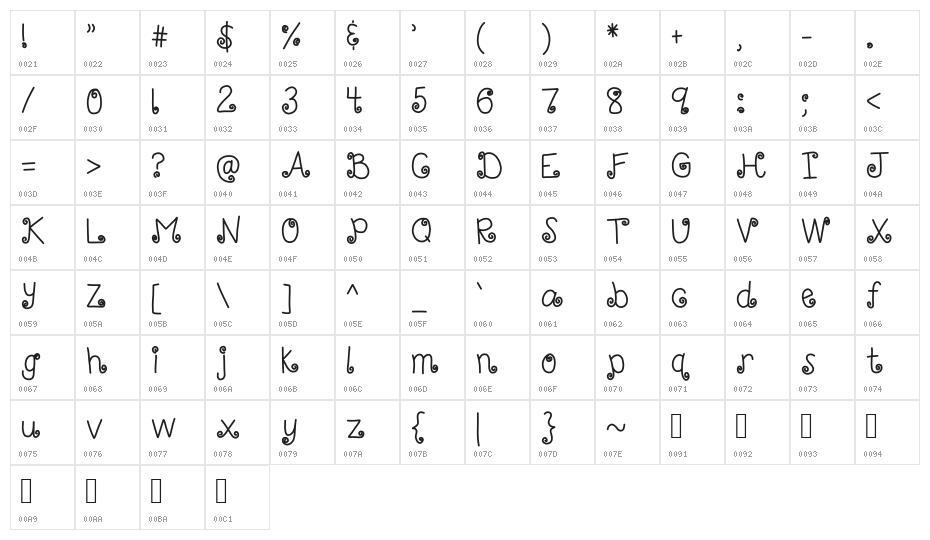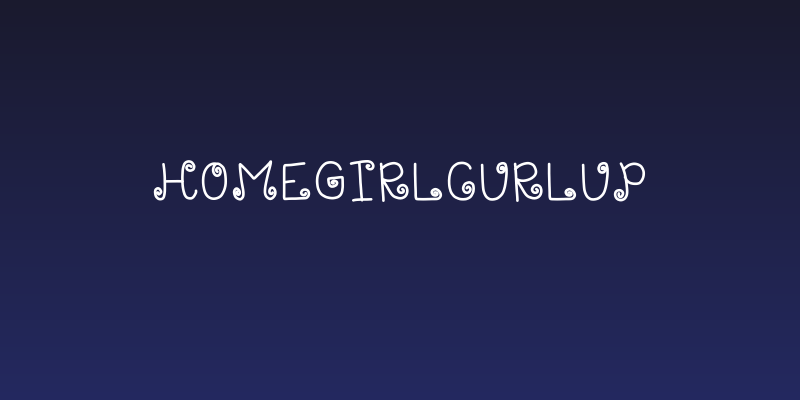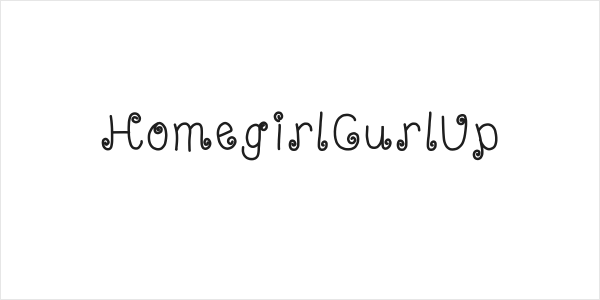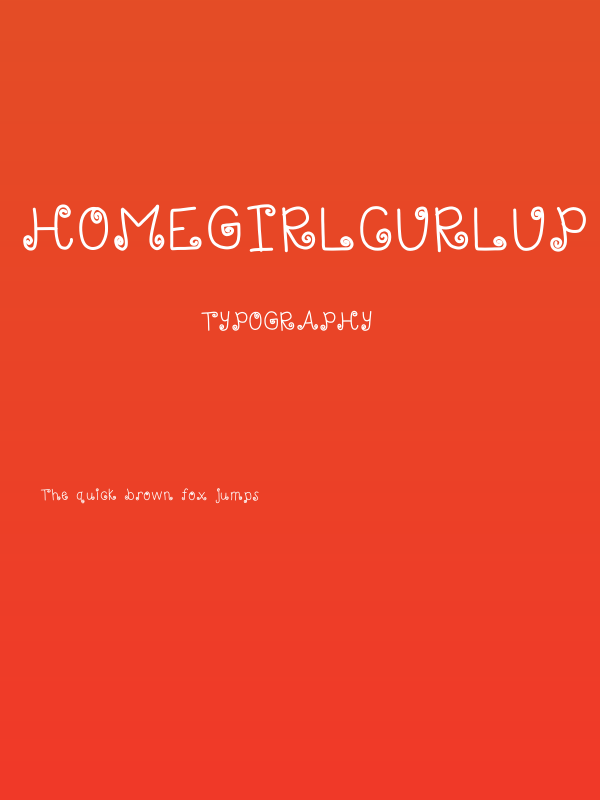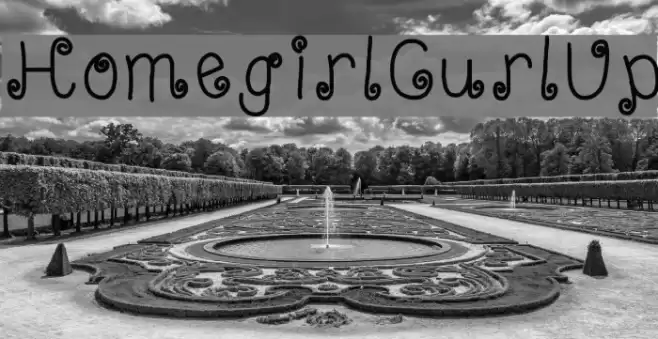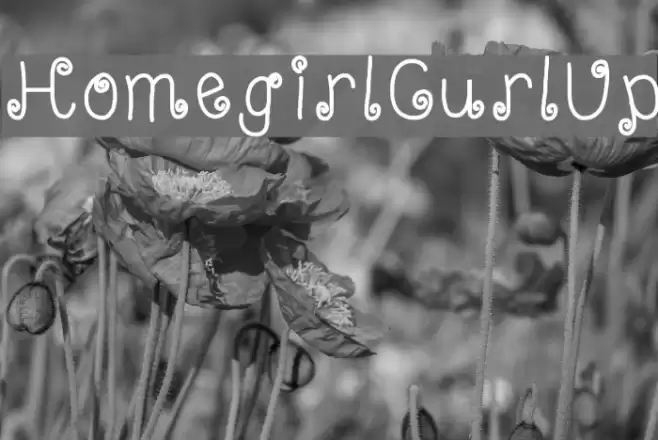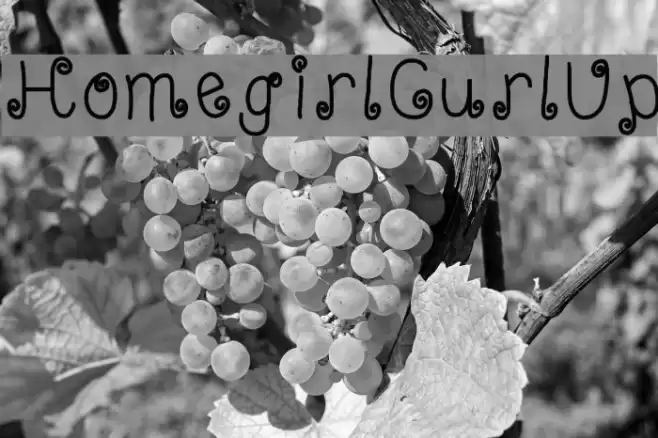
HomegirlCurlUp Font
This whimsical and playful font features unique curly embellishments on each character, giving it a lively and fun appearance. The letters are rounded and have a hand-drawn feel, with each character adorned with distinctive curls that add a sense of movement and creativity. The font maintains a consistent stroke width, providing a balanced and cohesive look across all characters. Its decorative style makes it ideal for projects that require a touch of personality and flair. The numbers and special characters are equally adorned with curls, ensuring a uniform and engaging aesthetic throughout.
| Overall Style | Whimsical |
| Use Case | Headlines, Logos, Decorative text |
| Proposed Projects | Perfect for children's books, playful branding, greeting cards, and creative posters. |